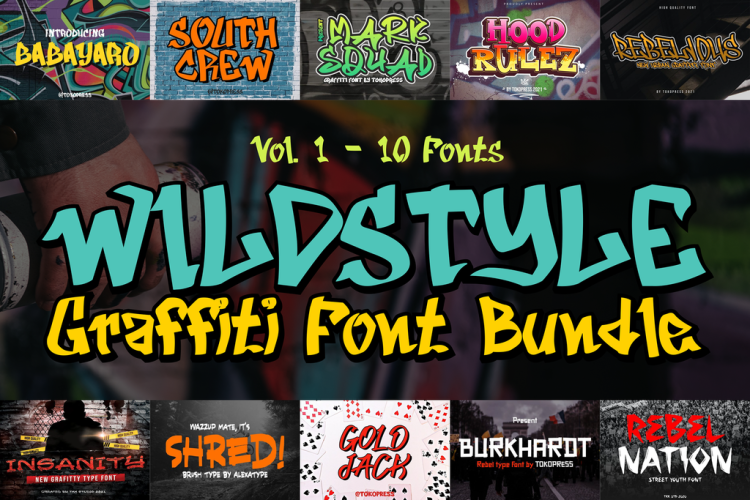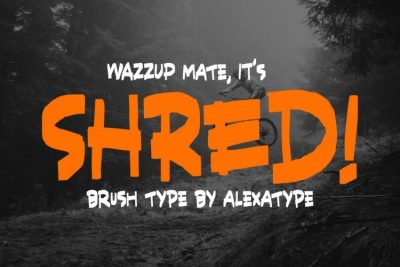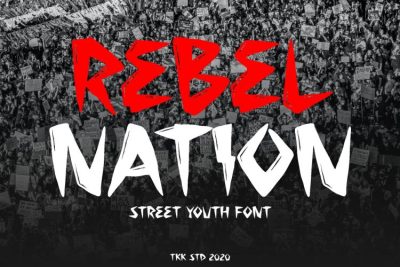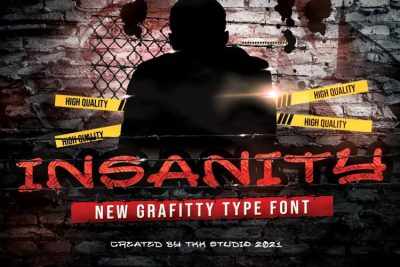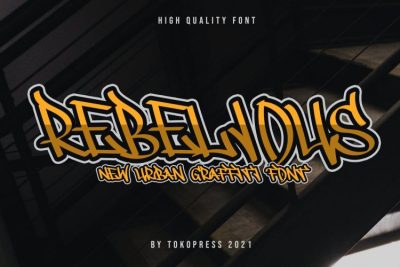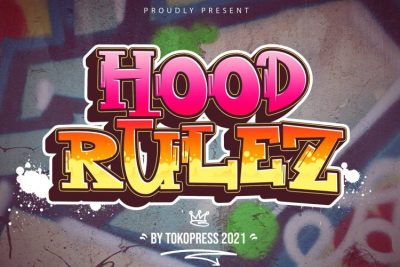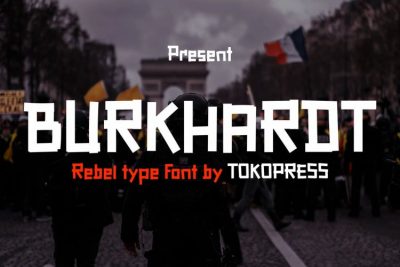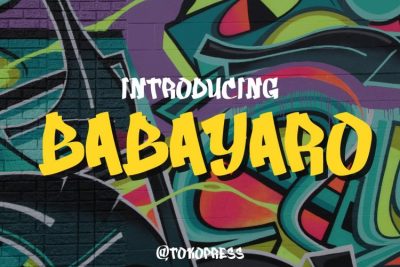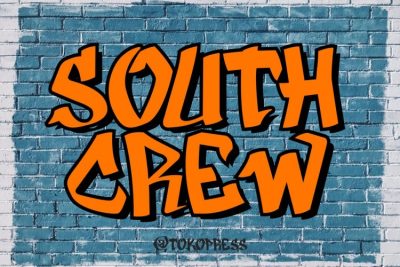
Are you looking for bold, expressive, and street-style fonts to add an urban edge to your designs? If so, the Wildstyle Graffiti Font Bundle is perfect for you! This collection includes 10 premium graffiti fonts, designed to bring a raw, edgy, and artistic vibe to any project. Whether you’re working on streetwear branding, music covers, posters, or graffiti-inspired merchandise, these fonts will help your designs stand out.
✨ What’s Inside?
This bundle features 10 unique graffiti fonts, each inspired by street art, hip-hop culture, and urban lettering. Not only do they give your work a bold and authentic look, but they are also easy to use. Plus, they work seamlessly across multiple design platforms, making them ideal for both beginners and professionals. Whether you need fonts for posters, branding, or apparel, this collection has something for you.
Who Should Get This Bundle?
🎨 Graphic Designers – If you design graffiti-style branding, posters, or urban artwork, these fonts will add a unique touch.
🛍️ Streetwear & Apparel Brands – Want bold T-shirts, hoodies, or custom fashion items? These fonts will make your designs pop.
🎵 Musicians & Album Designers – Whether for hip-hop covers, mixtapes, or event flyers, these fonts bring an authentic street aesthetic.
📢 Event & Party Planners – Make posters, flyers, and promotional graphics that stand out.
📱 Social Media Creators – Want bold, artistic visuals? These fonts will help create eye-catching content.
🎁 Merch & Product Designers – Perfect for stickers, skateboards, and graffiti-inspired products.
Why You’ll Love This Bundle?
✔ 10 Unique Graffiti Fonts – A mix of wildstyle, hand-drawn, and spray-paint lettering for an urban feel.
✔ Authentic Urban Vibe – Whether for branding, posters, or merchandise, these fonts add an edgy, street-art feel to your work.